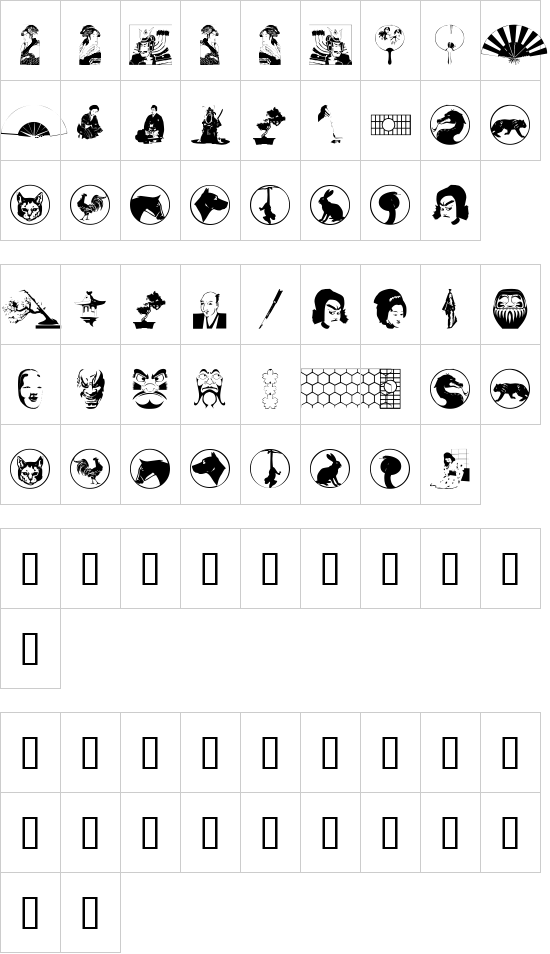
Asian Dings
About Asian Dings
Asian Dings is a dingbat font that swaps standard letters for Asian-inspired pictograms and decorative symbols, from stylized motifs to ornamental marks. Each key delivers a ready-made graphic with an East Asian flavor, drawn in clean, usable shapes. Rather than spelling words, it offers a small library of themed illustrations at your fingertips.